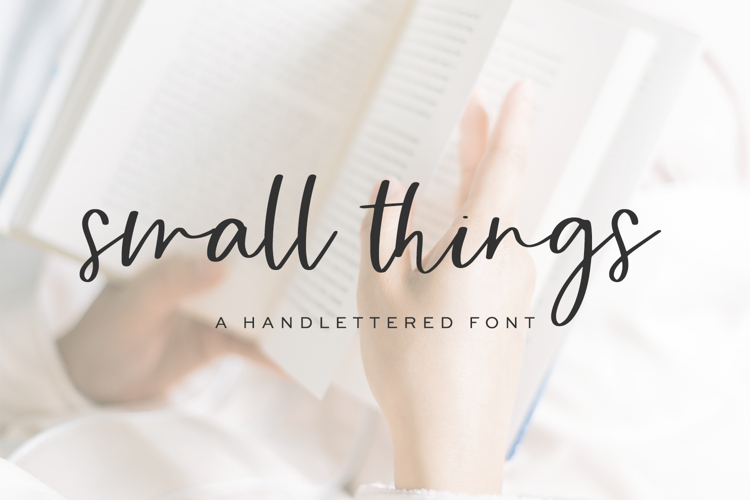
Introducing Small Things Script, a handwritten cursive font. A little messy & signature-like, Small Things is perfect for your next simple project.
Small Things Script is best for:
- website design + website accents - think travel blogs, fashion blogs, & more
- social media graphics for Facebook or Instagram, or quote graphics